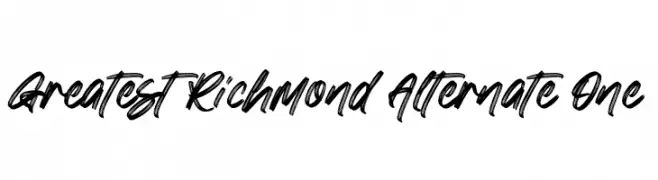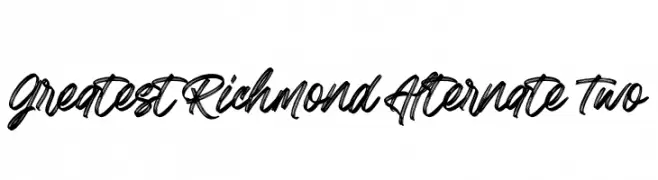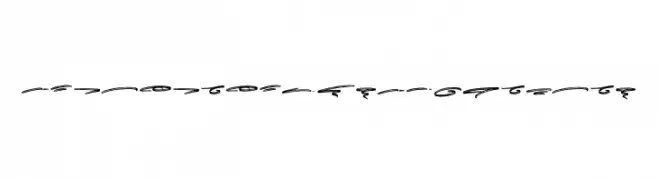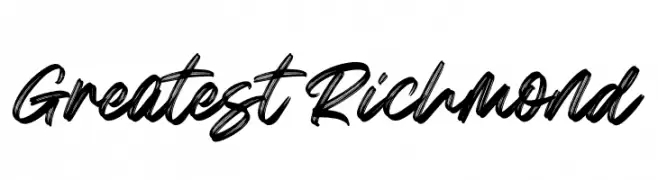
A bold, playful font with dynamic underlines and a lively style.
A playful, hand-drawn font with a whimsical and informal style.
A dynamic, cursive script font with a vintage, distressed texture.
A dynamic and expressive handwritten font with fluid strokes and playful curves.
A lively, handwritten-style font with dynamic, fluid strokes.
An elegant, flowing script font with intricate swashes.
A bold, expressive handwritten font with dynamic brush-like strokes.
A bold, dynamic script font with a hand-drawn, expressive style.
A bold, dynamic handwritten font with expressive brush-like strokes.
A bold, playful handwritten font with rounded letterforms.